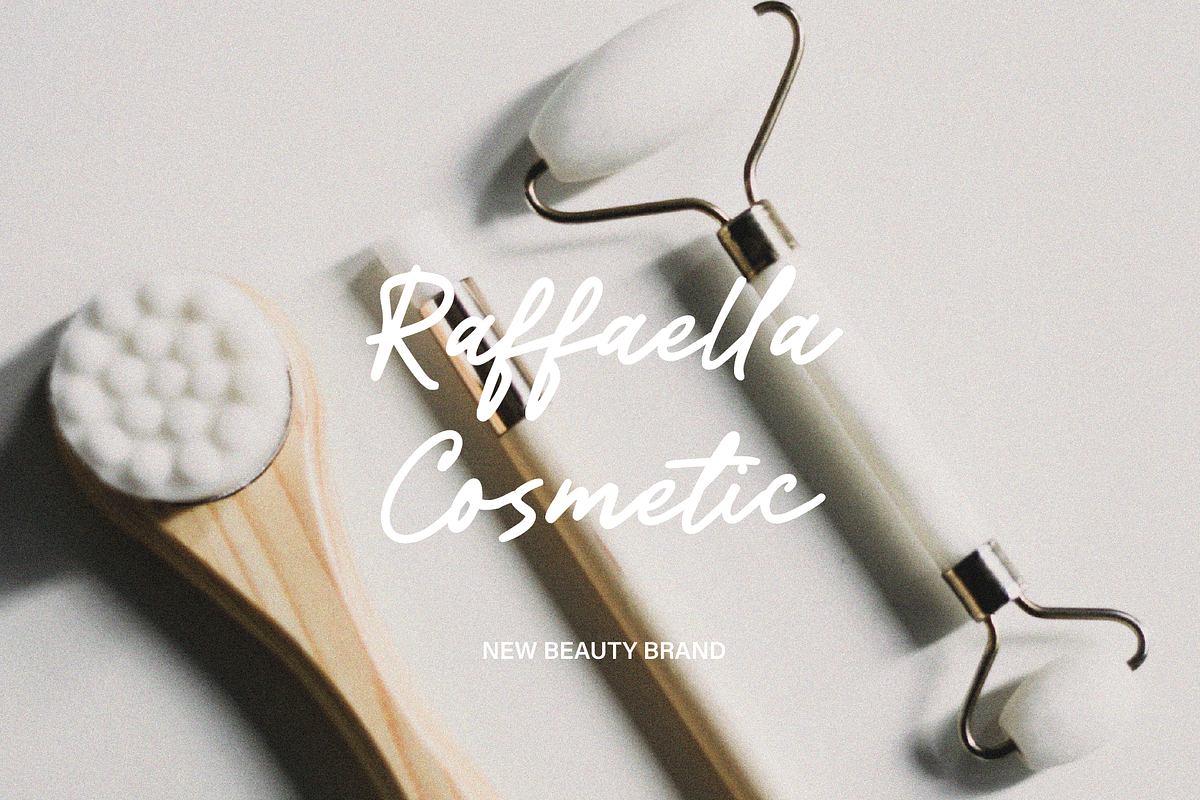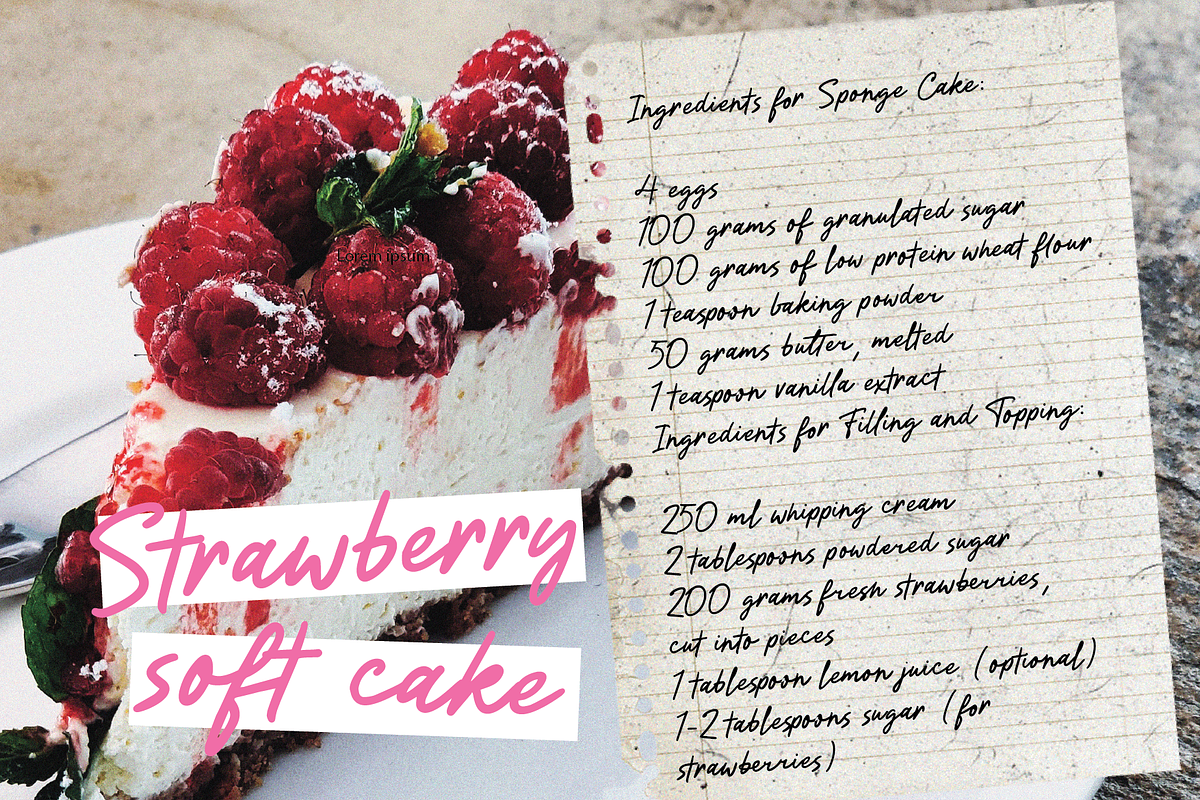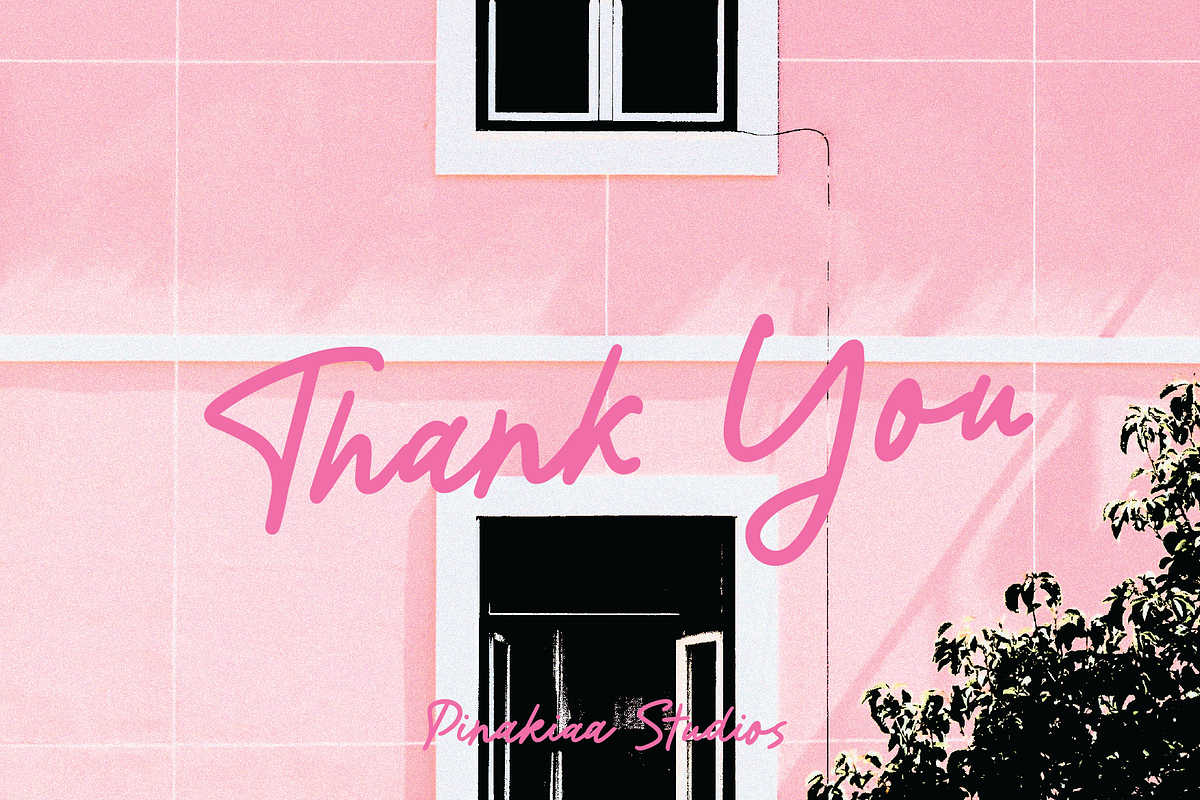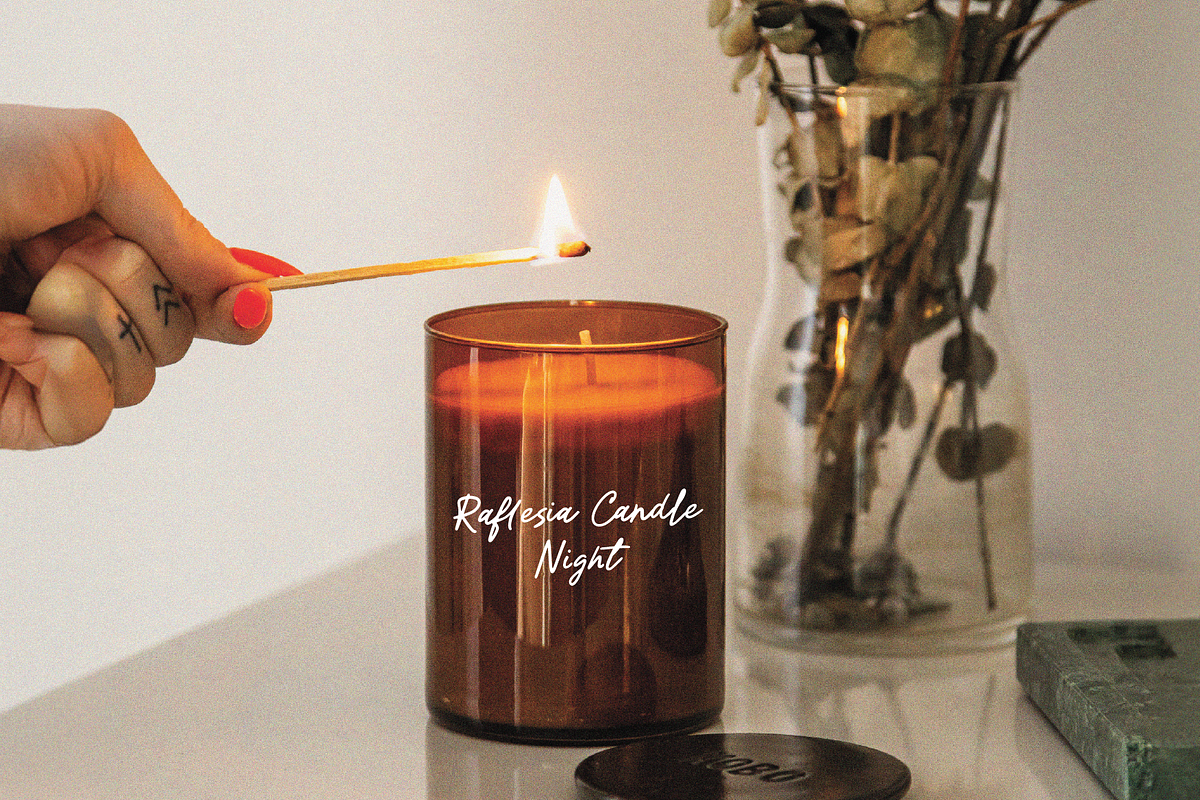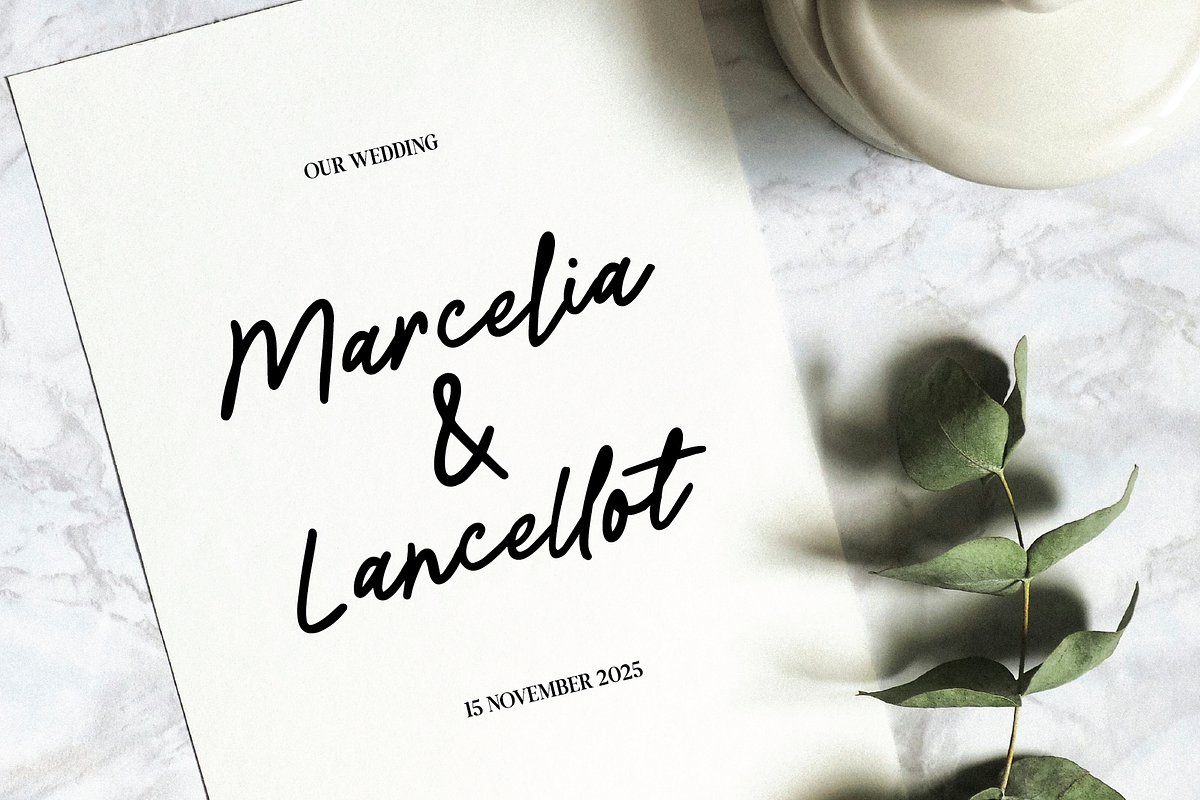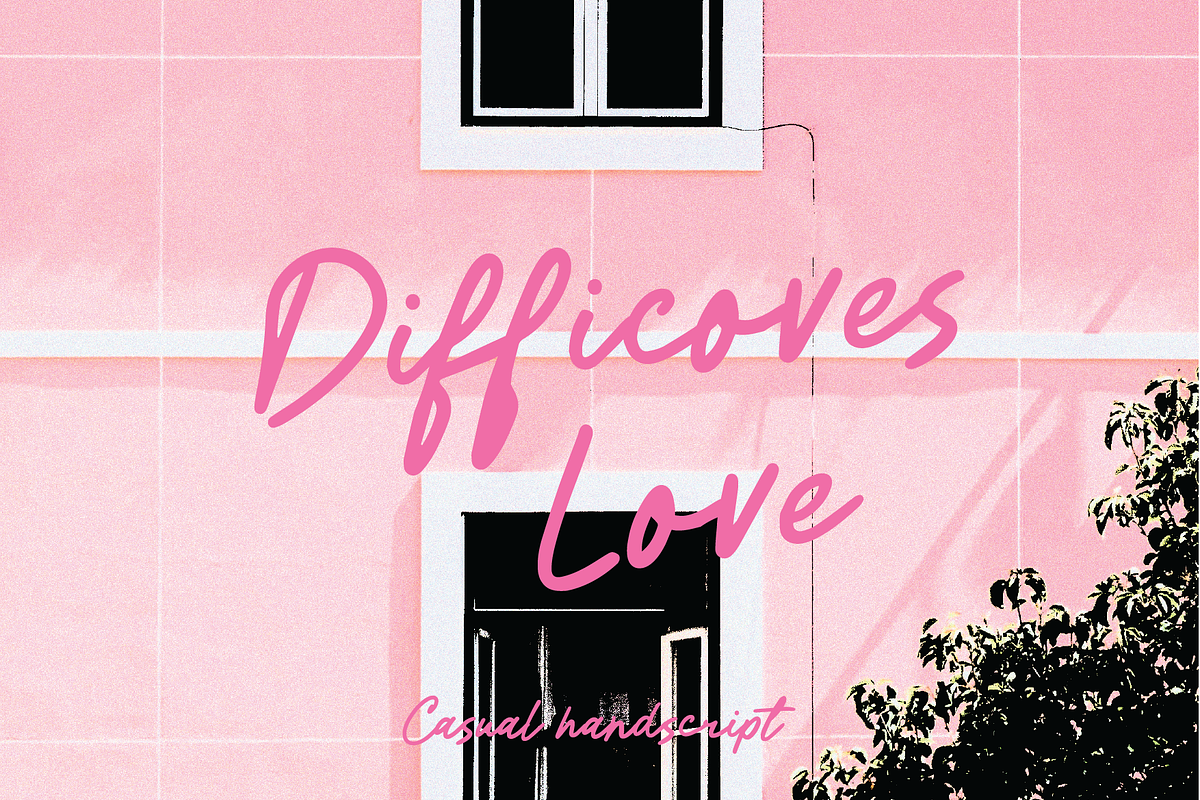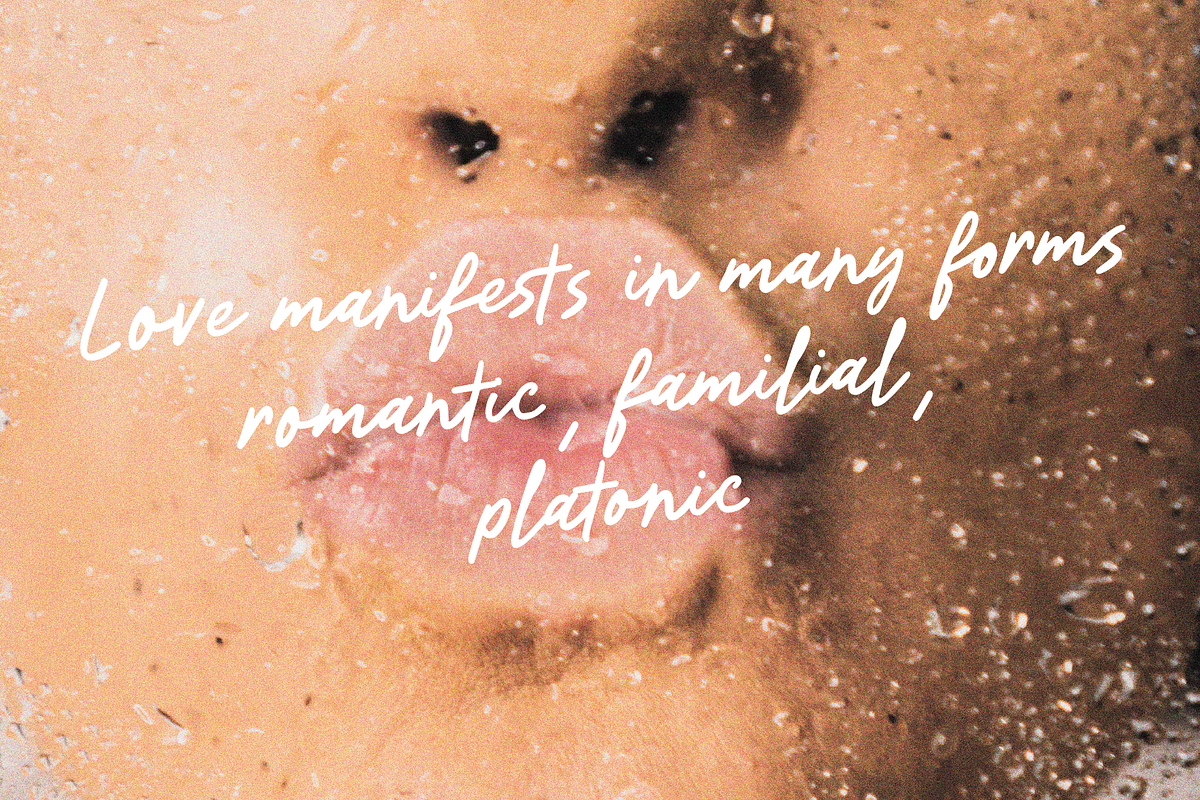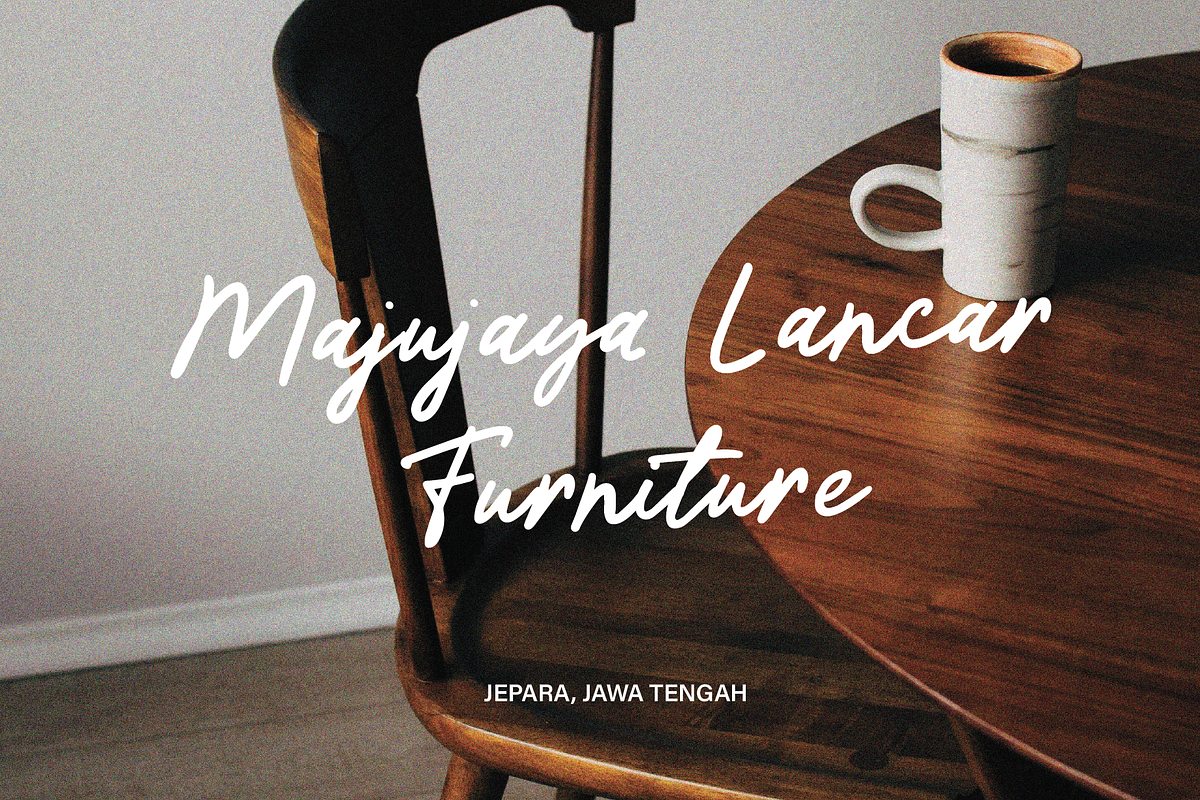
Difficoves Love - Handwritting
Difficoves Love a casual handwritten script font, brimming with charm and personality. It’s the ideal choice for bakery branding, café menus, social media graphics, or any project that needs a touch of sweetness.
Difficoves Love Font Features: STANDARD GLYPHS LIGATURE AND ALTERNATES MULTILINGUAL SUPPORT